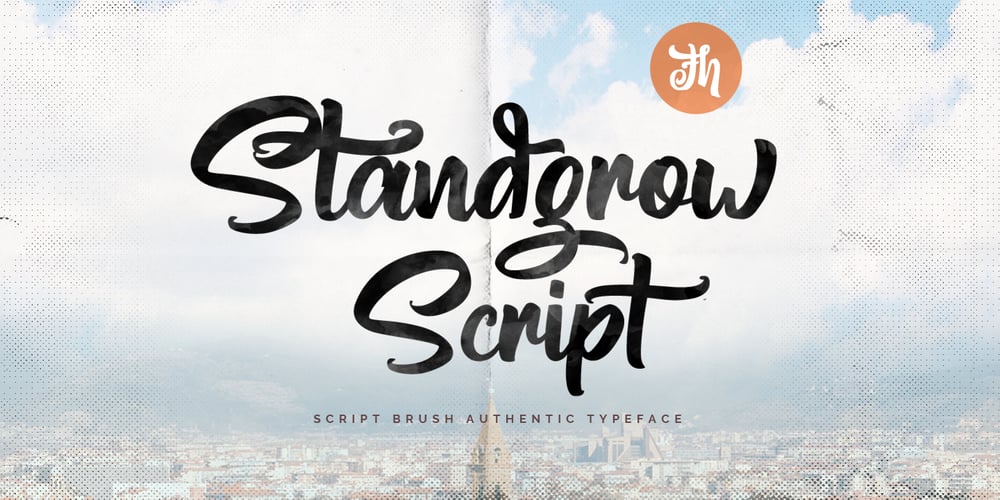
Standgrow Font Family was designed by Ferry Hadriyan and published by FHFont. Standgrow contains 1 styles and family package options. Standgrow is script font with authentic clean brush style, this font basically script calligraphy with vintage style. Suitable for design, element design, wedding, event, t-shirt, logo, badges, sticker, and awesome work.